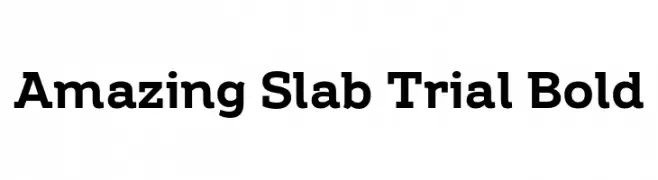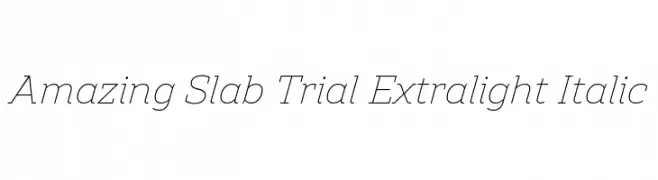
A medium weight, italic slab serif font with a modern and elegant style.
A bold, italic slab serif font with high contrast and modern appeal.
A bold slab serif font with strong, block-like serifs for impactful text.
A robust slab serif font with strong, consistent strokes and excellent legibility.
A bold slab serif font with strong, block-like serifs and a modern yet classic style.
A robust slab serif font with bold, structured characters and a modern yet classic appeal.
A sleek, elegant italic font with thin, elongated characters and a modern aesthetic.
A thin, geometric font with a clean and modern design.
A modern, elegant font with thin, uniform strokes and geometric shapes.
A modern slab serif font with a light weight and elegant design.